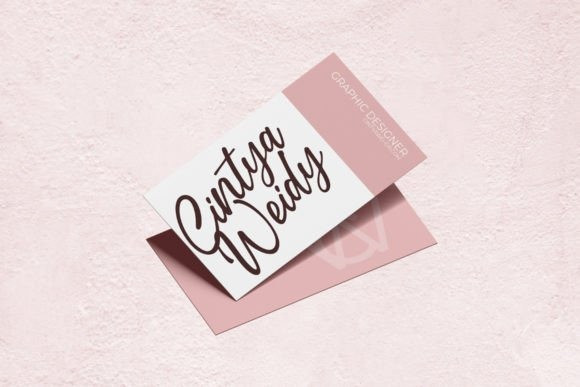
Dalovet Font
Dalovet Script Font is a modern beaty & elegant script font perfect for posters, logos, magazines, book covers, banners, and many more! Get this amazing freebie, and use it to create lovely designs!